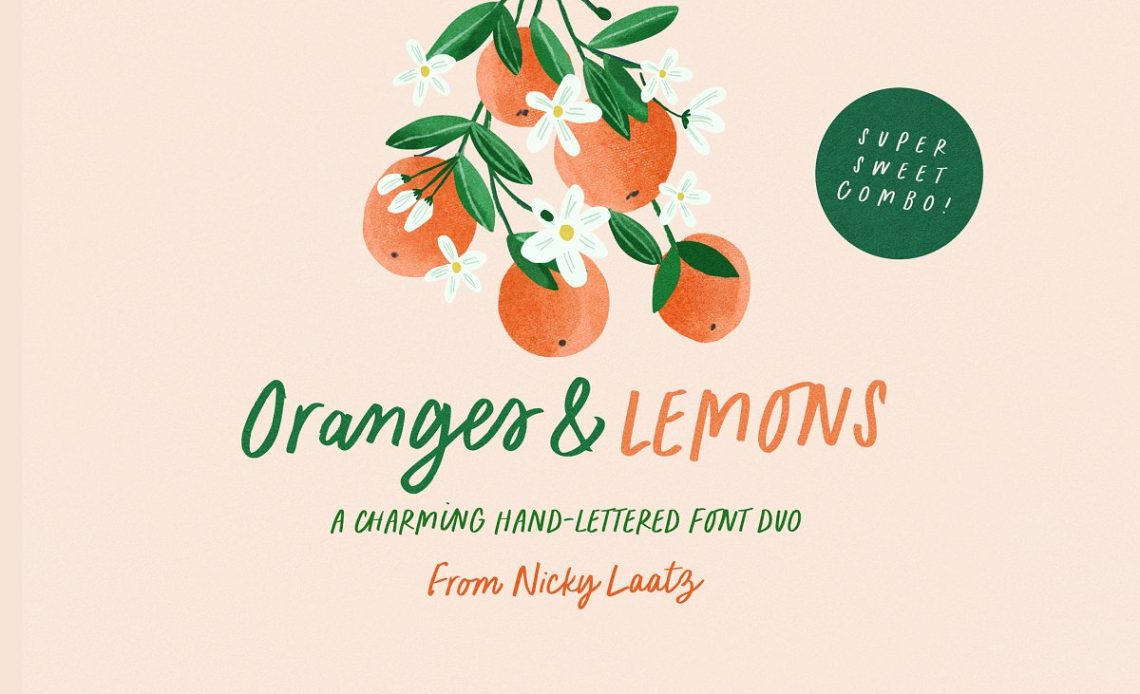
Introducing "Oranges and Lemons" - the charming and sweet new hand-lettered font duo created by the talented Nicky Laatz. This script font family is perfect for those looking for a casual and playful typeface for greeting cards, illustrations, quotes, branding, book covers, children's books, packaging, and so much more.
The duo consists of a casual handwriting marker style all-caps font, and a matching Script. Its pretty ligatures built into their OpenType features are sure to delight users. Make sure you have your ligatures turned on to take advantage of the unique features of this font family.
Add some zest and vibrancy to your designs with Oranges and Lemons. This script font family will add a touch of whimsy and delight to any project, making it perfect for designers, artists, and anyone looking to create designs that stand out from the crowd.